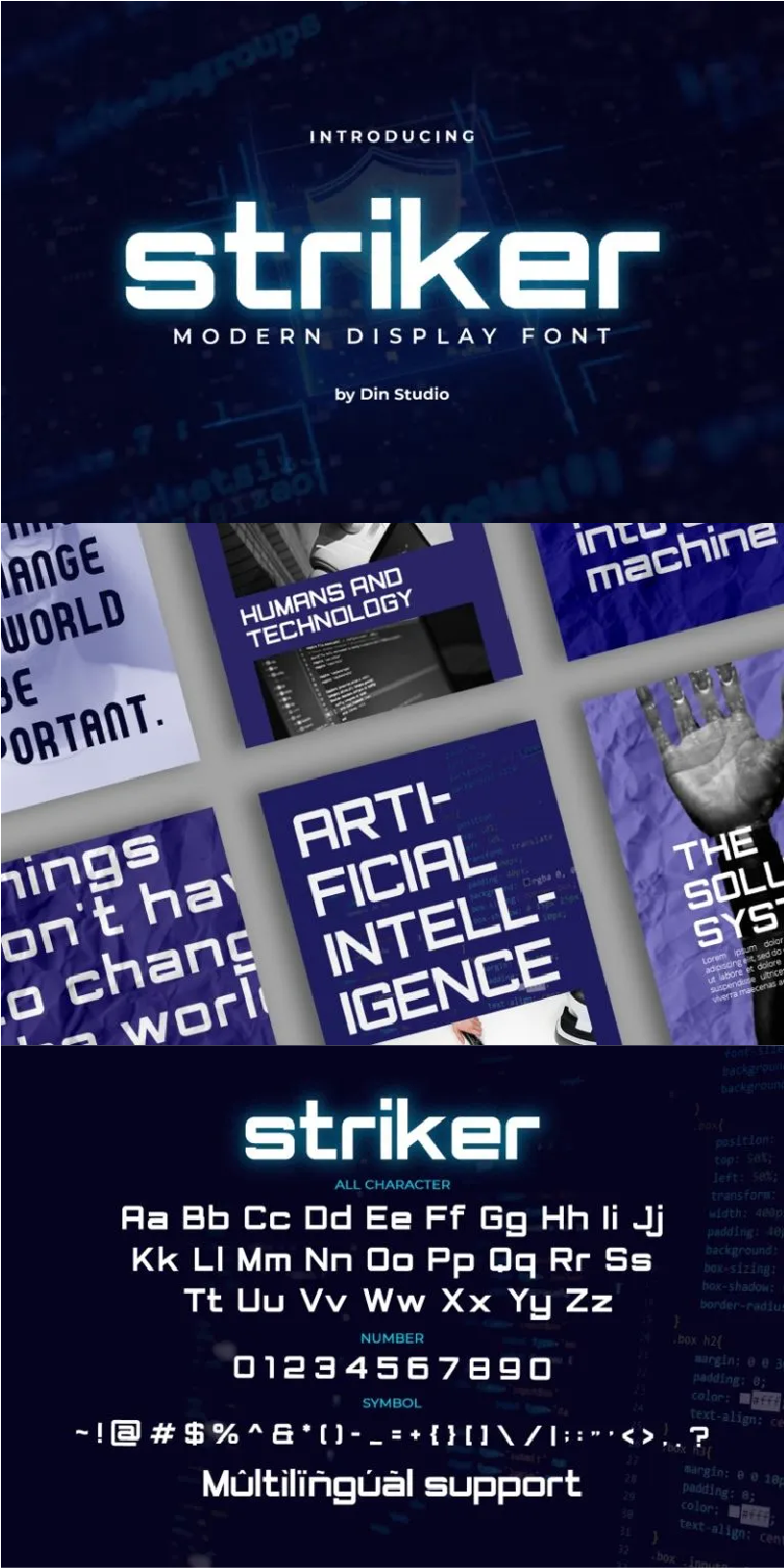
Striker Regular Font Free Download - Web striker regular is a 100% free font designed by vladimir nikolic, a designer from serbia. It is a bold techno typeface with 81. Web striker fonts free download. It has 235 glyphs and is available. Web striker is a modern display font by din studio that can be used for logos, branding and quotes.
It is a bold techno typeface with 81. It has 235 glyphs and is available. Web striker fonts free download. Web striker regular is a 100% free font designed by vladimir nikolic, a designer from serbia. Web striker is a modern display font by din studio that can be used for logos, branding and quotes.
It is a bold techno typeface with 81. Web striker is a modern display font by din studio that can be used for logos, branding and quotes. Web striker regular is a 100% free font designed by vladimir nikolic, a designer from serbia. It has 235 glyphs and is available. Web striker fonts free download.
Web striker fonts free download. It has 235 glyphs and is available. Web striker regular is a 100% free font designed by vladimir nikolic, a designer from serbia. It is a bold techno typeface with 81. Web striker is a modern display font by din studio that can be used for logos, branding and quotes.
Striker Font
Web striker is a modern display font by din studio that can be used for logos, branding and quotes. It has 235 glyphs and is available. Web striker fonts free download. Web striker regular is a 100% free font designed by vladimir nikolic, a designer from serbia. It is a bold techno typeface with 81.
It has 235 glyphs and is available. Web striker fonts free download. Web striker regular is a 100% free font designed by vladimir nikolic, a designer from serbia. Web striker is a modern display font by din studio that can be used for logos, branding and quotes. It is a bold techno typeface with 81.
Striker Regular font
It has 235 glyphs and is available. Web striker is a modern display font by din studio that can be used for logos, branding and quotes. It is a bold techno typeface with 81. Web striker regular is a 100% free font designed by vladimir nikolic, a designer from serbia. Web striker fonts free download.
Web striker regular is a 100% free font designed by vladimir nikolic, a designer from serbia. It is a bold techno typeface with 81. Web striker is a modern display font by din studio that can be used for logos, branding and quotes. It has 235 glyphs and is available. Web striker fonts free download.
It is a bold techno typeface with 81. Web striker fonts free download. Web striker is a modern display font by din studio that can be used for logos, branding and quotes. It has 235 glyphs and is available. Web striker regular is a 100% free font designed by vladimir nikolic, a designer from serbia.
Web striker fonts free download. Web striker regular is a 100% free font designed by vladimir nikolic, a designer from serbia. It is a bold techno typeface with 81. It has 235 glyphs and is available. Web striker is a modern display font by din studio that can be used for logos, branding and quotes.
Web striker fonts free download. It has 235 glyphs and is available. Web striker is a modern display font by din studio that can be used for logos, branding and quotes. Web striker regular is a 100% free font designed by vladimir nikolic, a designer from serbia. It is a bold techno typeface with 81.
It is a bold techno typeface with 81. Web striker regular is a 100% free font designed by vladimir nikolic, a designer from serbia. It has 235 glyphs and is available. Web striker fonts free download. Web striker is a modern display font by din studio that can be used for logos, branding and quotes.
Web striker fonts free download. Web striker regular is a 100% free font designed by vladimir nikolic, a designer from serbia. It is a bold techno typeface with 81. It has 235 glyphs and is available. Web striker is a modern display font by din studio that can be used for logos, branding and quotes.
Web Striker Regular Is A 100% Free Font Designed By Vladimir Nikolic, A Designer From Serbia.
Web striker fonts free download. Web striker is a modern display font by din studio that can be used for logos, branding and quotes. It has 235 glyphs and is available. It is a bold techno typeface with 81.